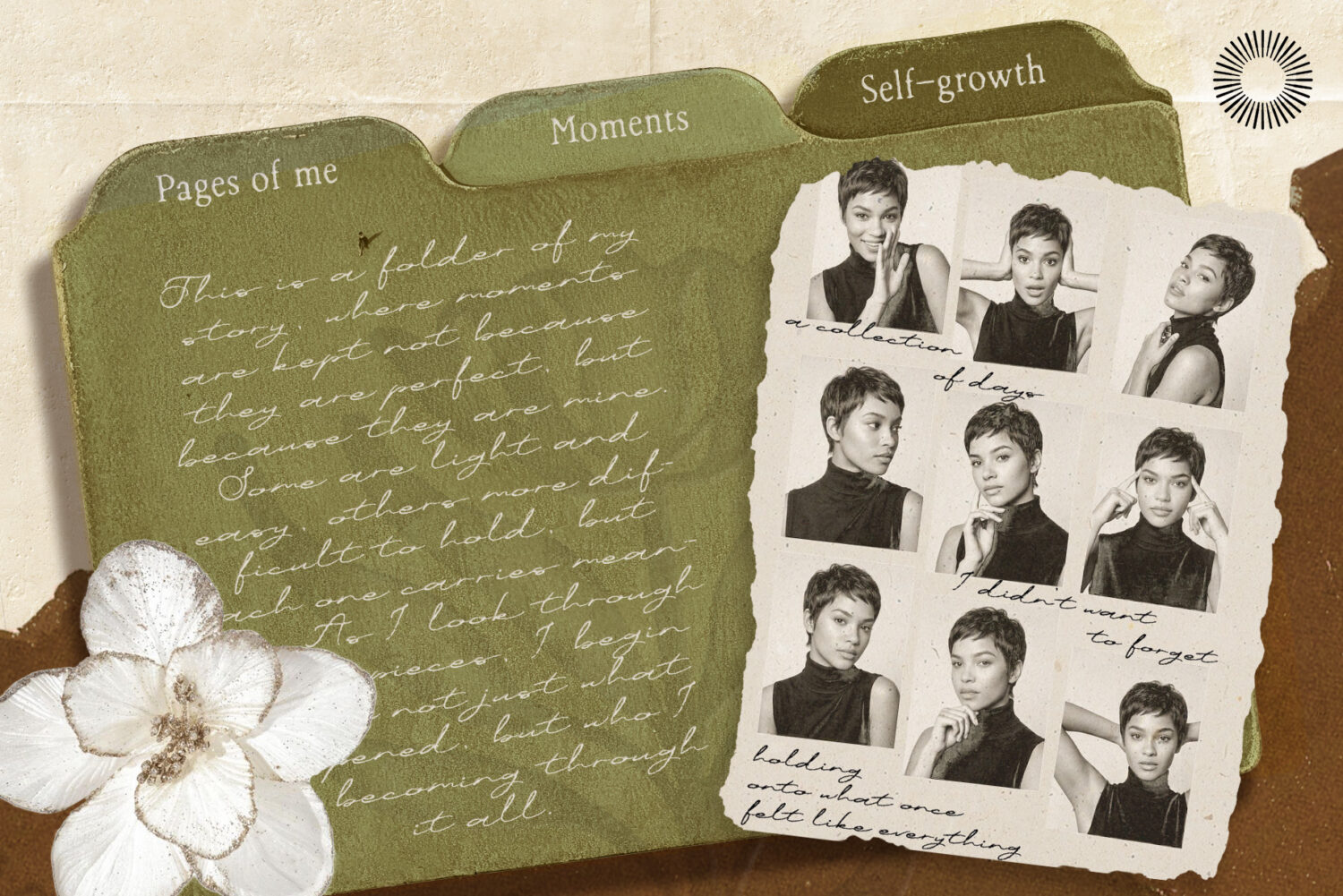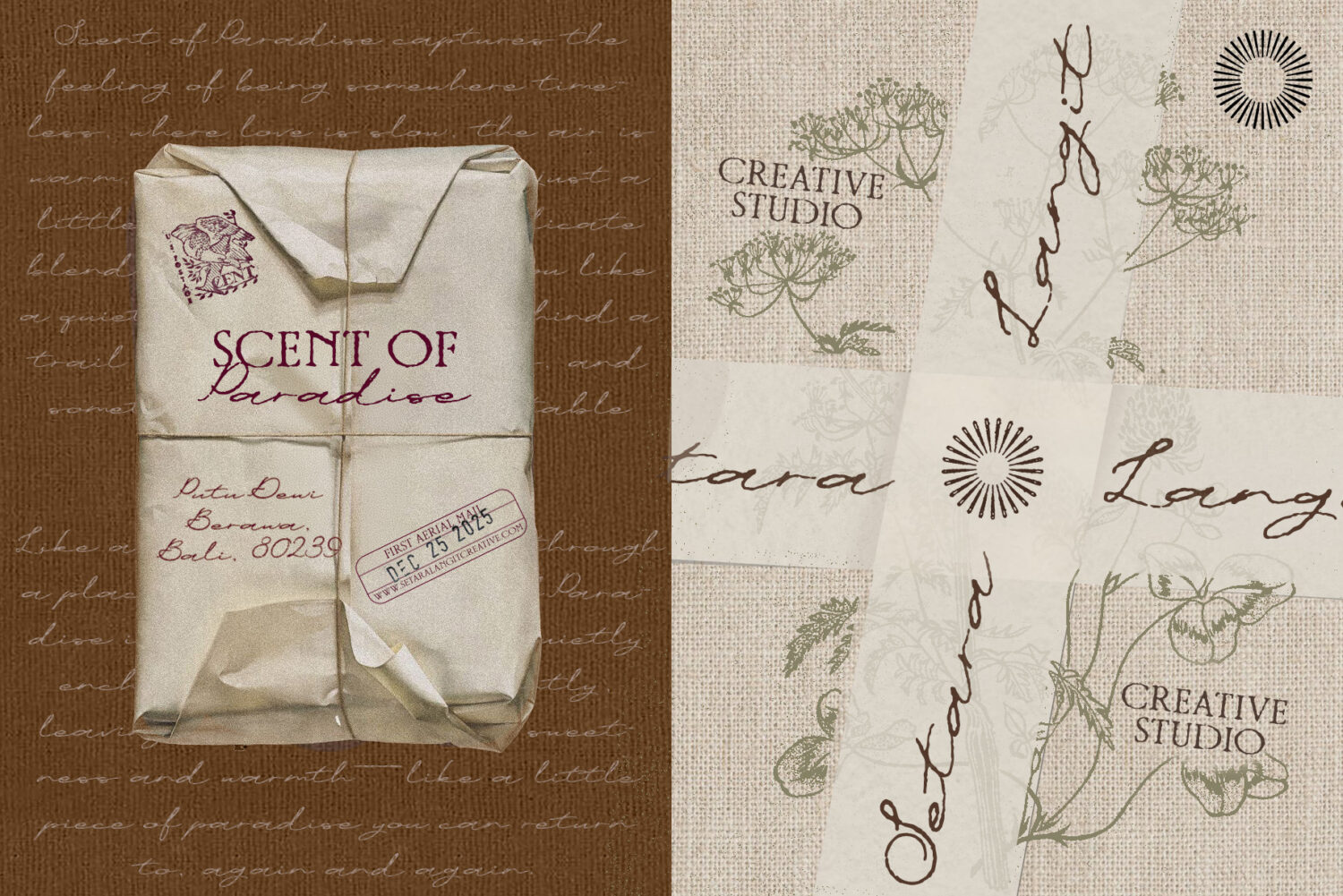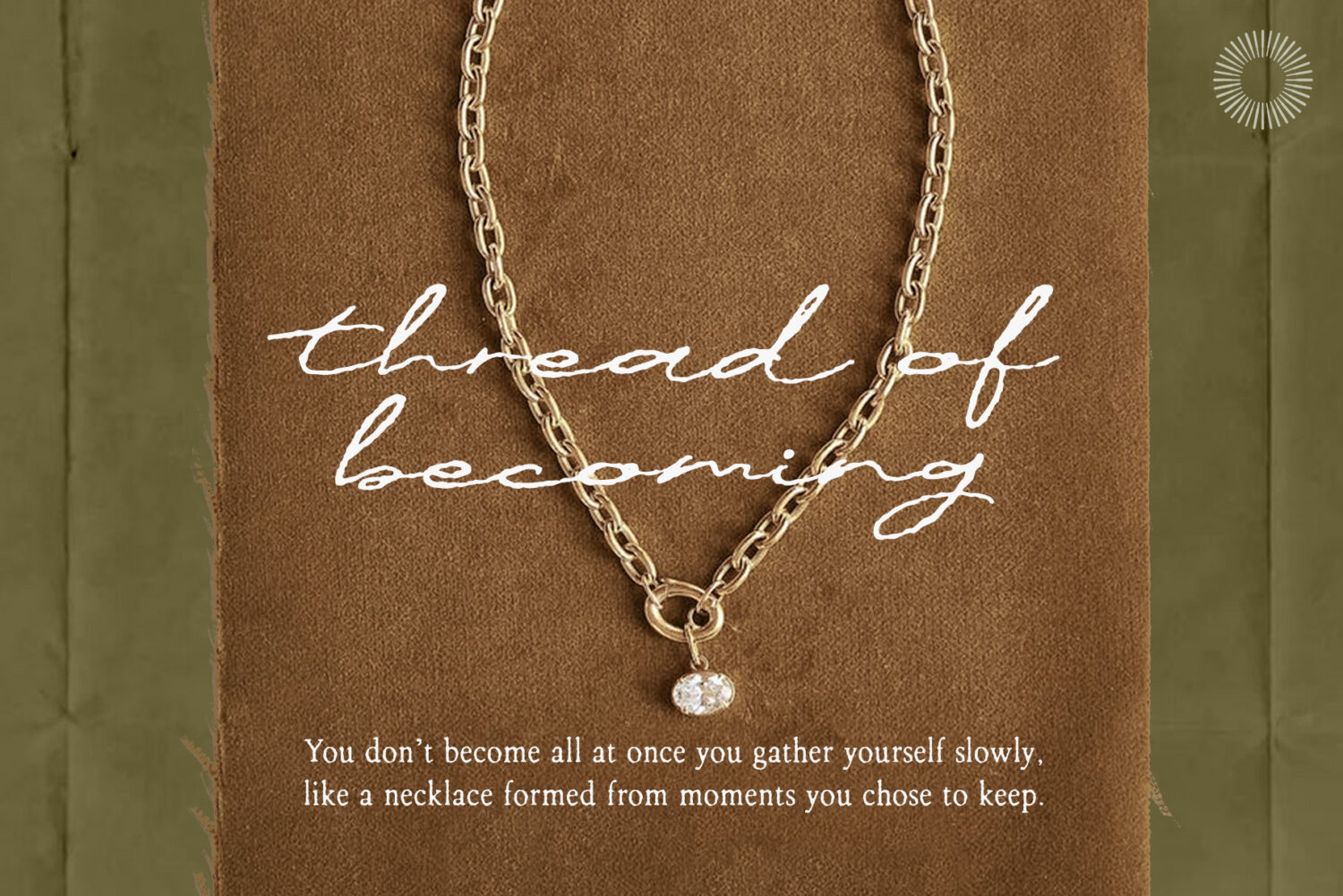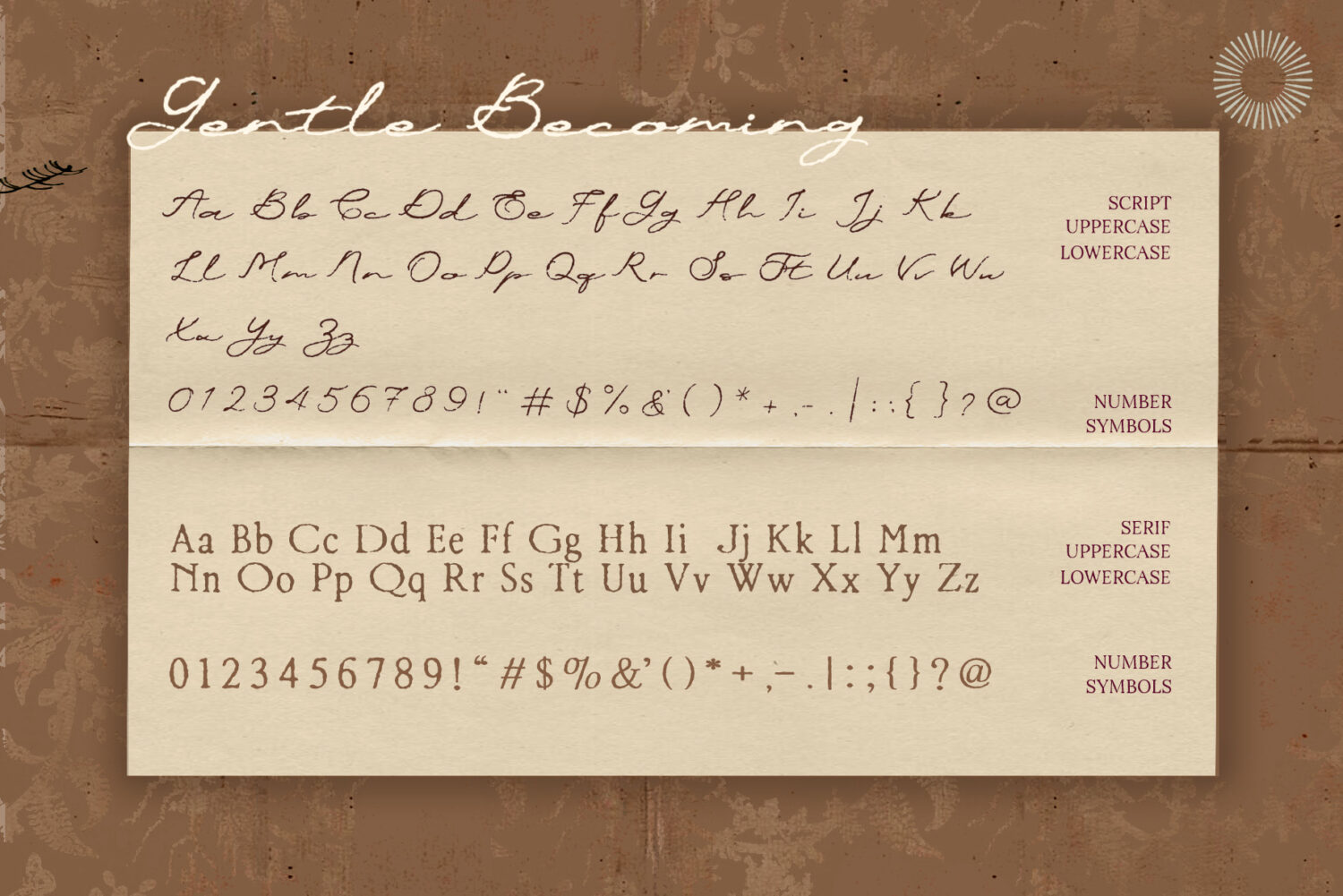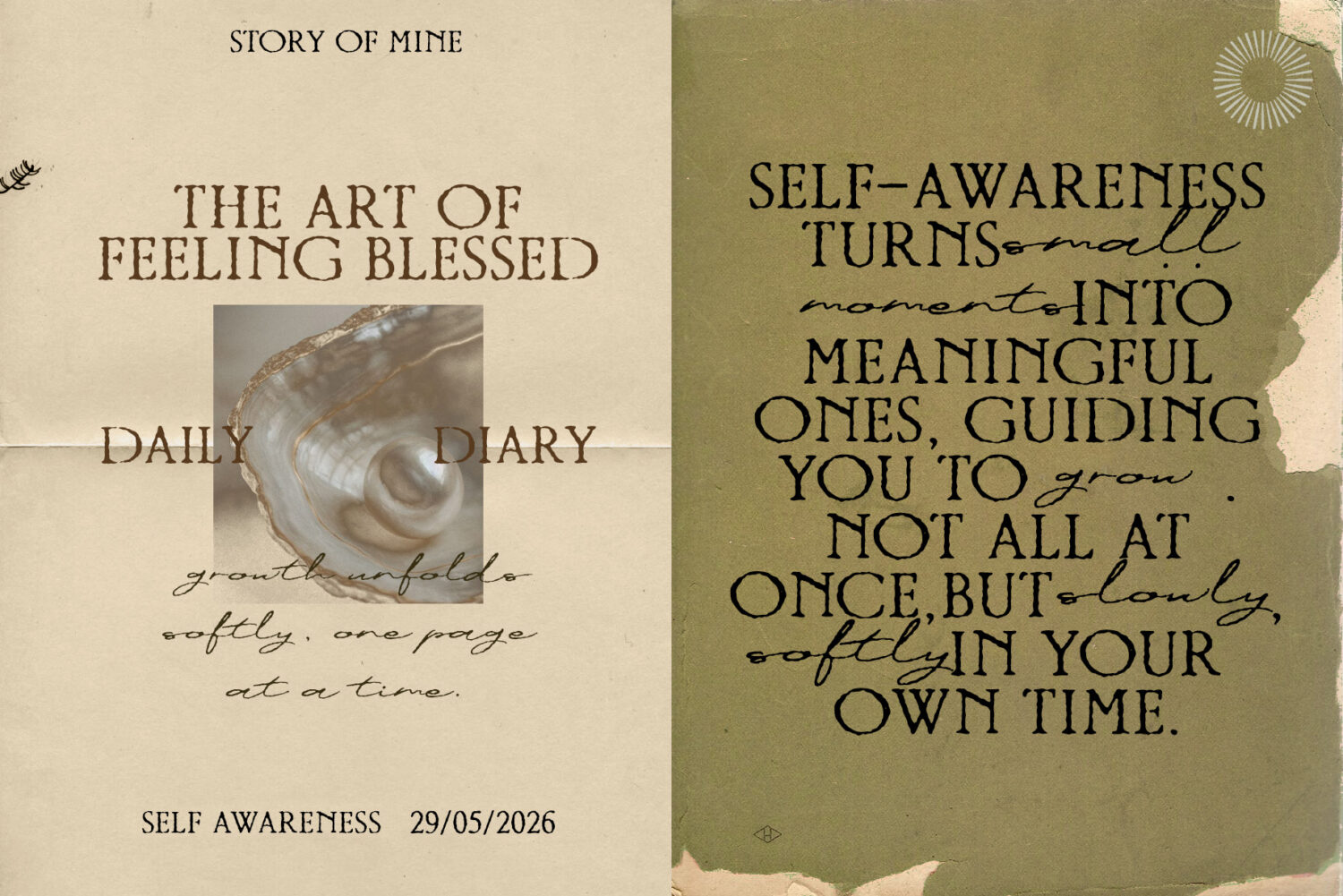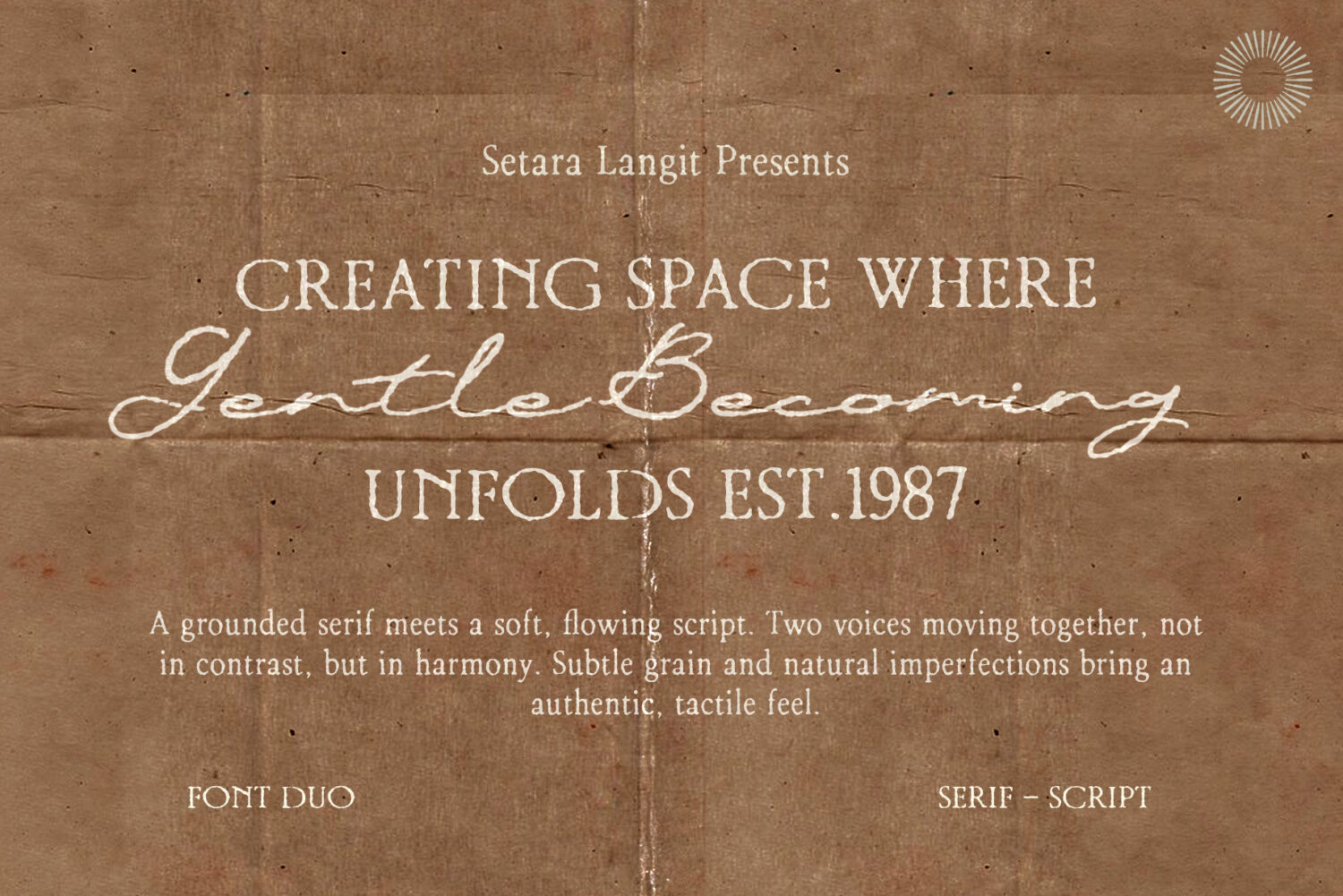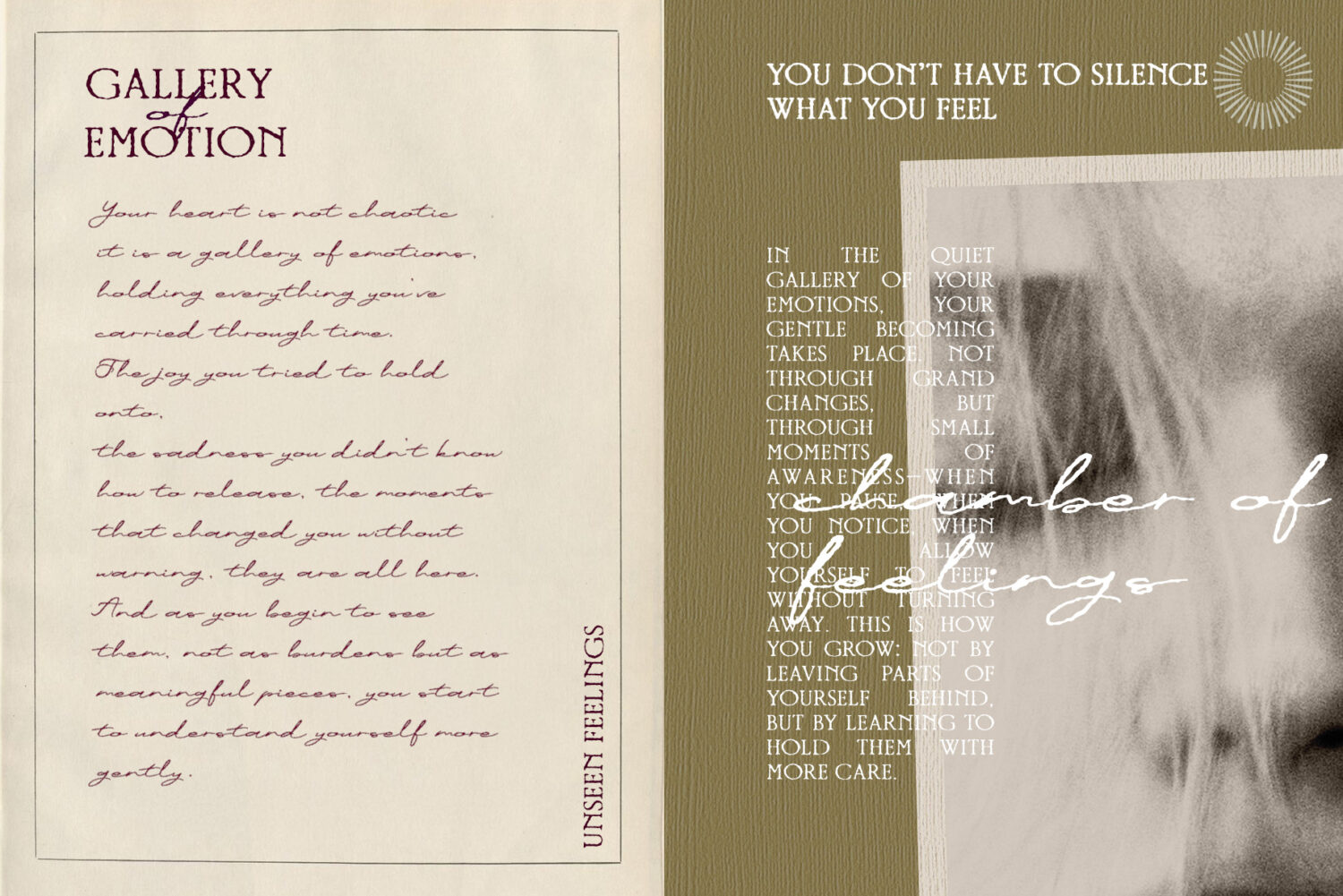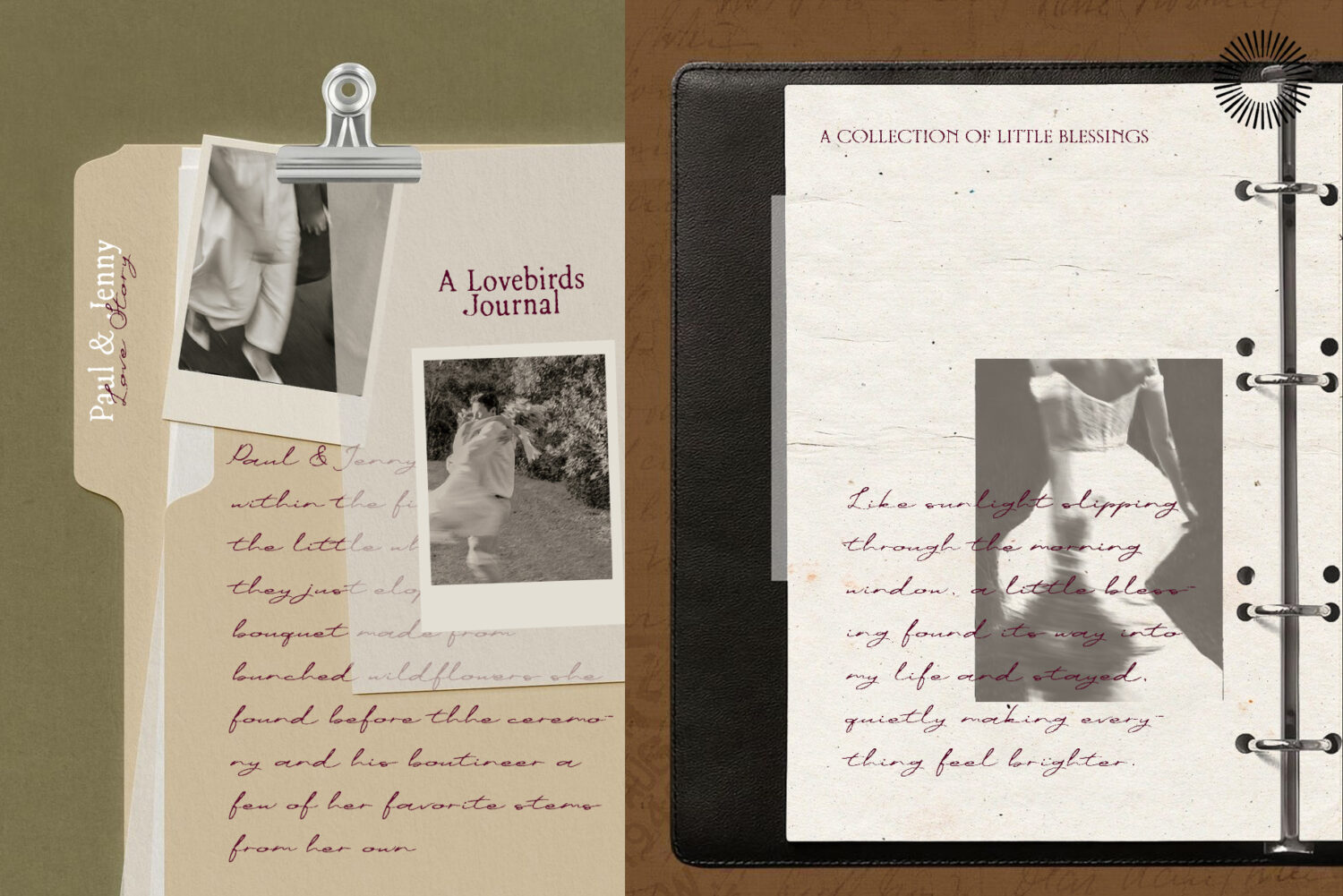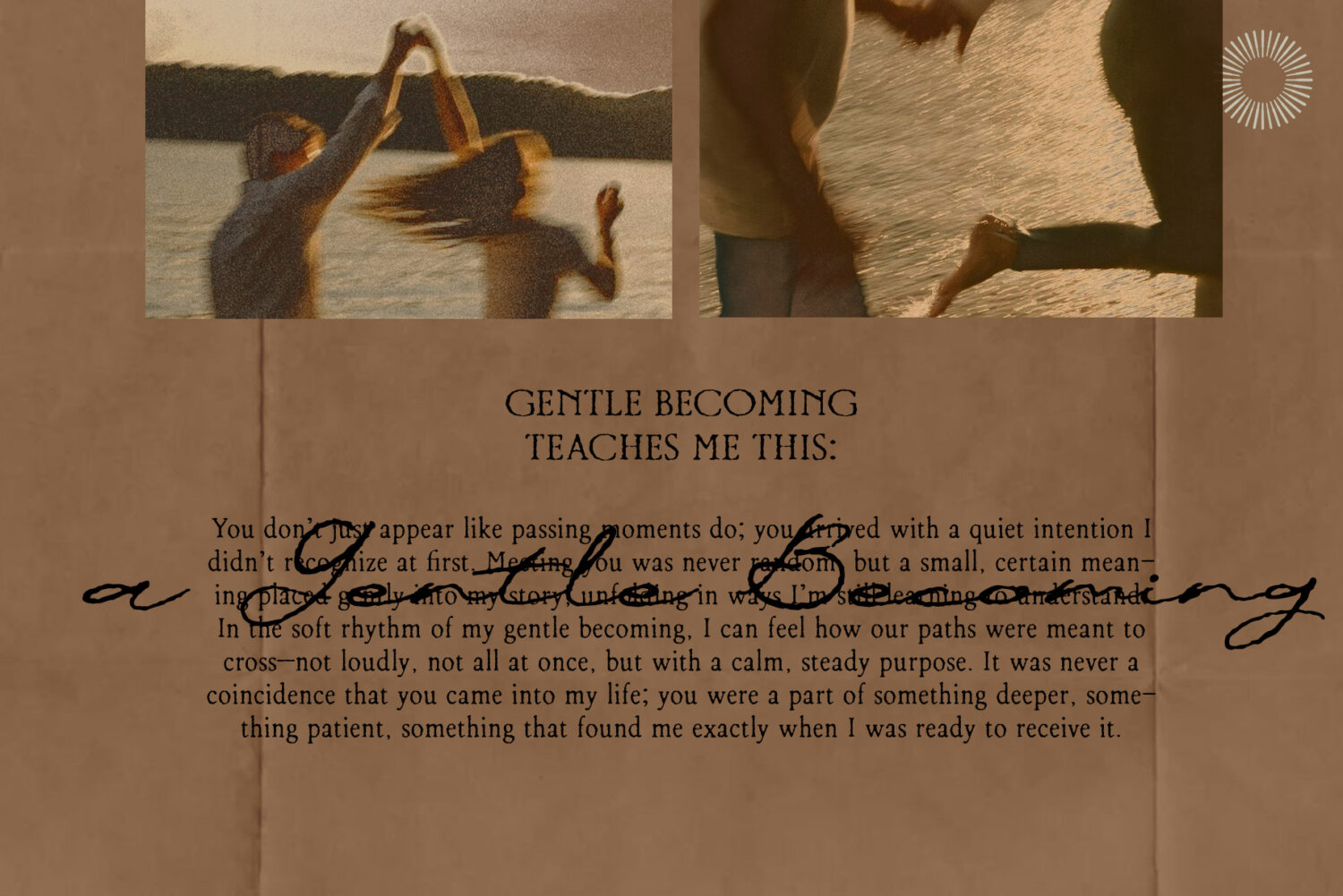
Gentle Becoming - Script
Gentle Becoming - Serif
Gentle Becoming – Font Duo
Gentle Becoming is an elegant font duo that pairs a grounded serif with a soft, flowing script designed to move together in quiet harmony rather than contrast. The combination creates a balanced typographic voice that feels both refined and deeply human. The serif brings structure and clarity, while the script adds warmth and natural movement. Subtle grain and organic imperfections give the fonts a tactile, vintage-inspired texture, making every composition feel authentic and expressive.